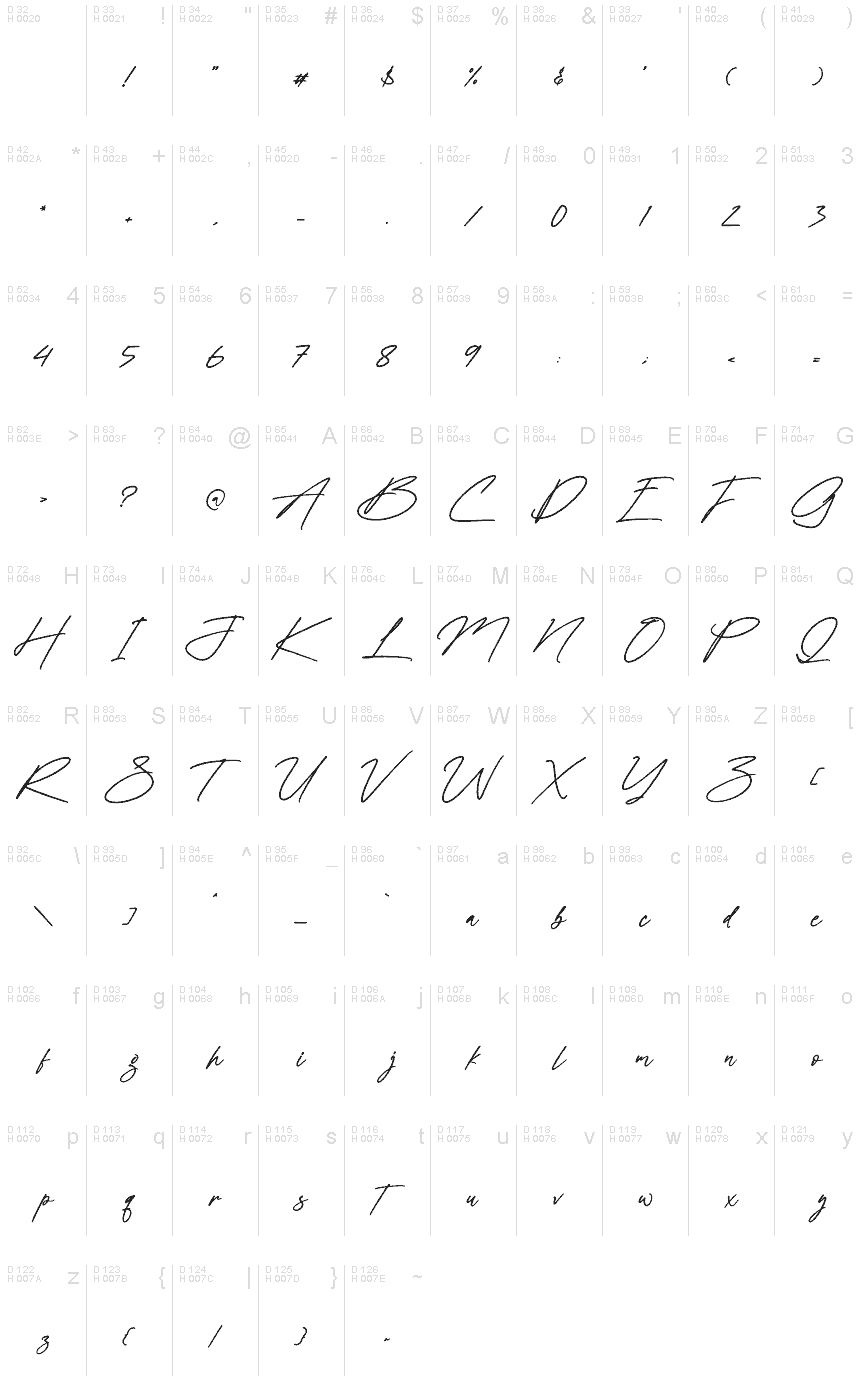
Millanittas
Millanittas font by Letterena Studios is a light, modern script handwritten font with an expressive and fluid appearance. It has an elegant and casual style that is perfect for projects where a personal touch is needed. It's unique creations will offer your every idea the chance to turn into a stunning front page.